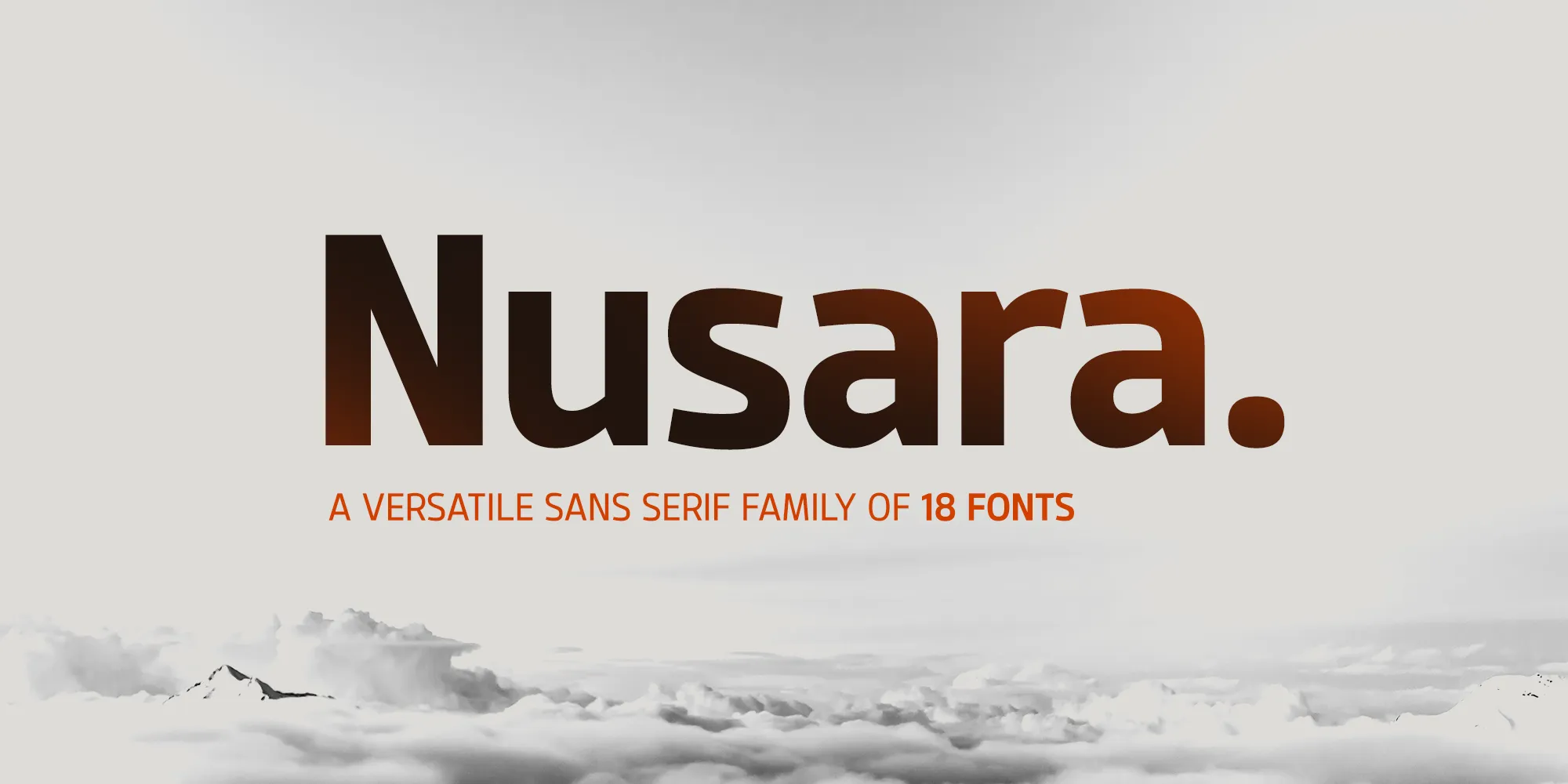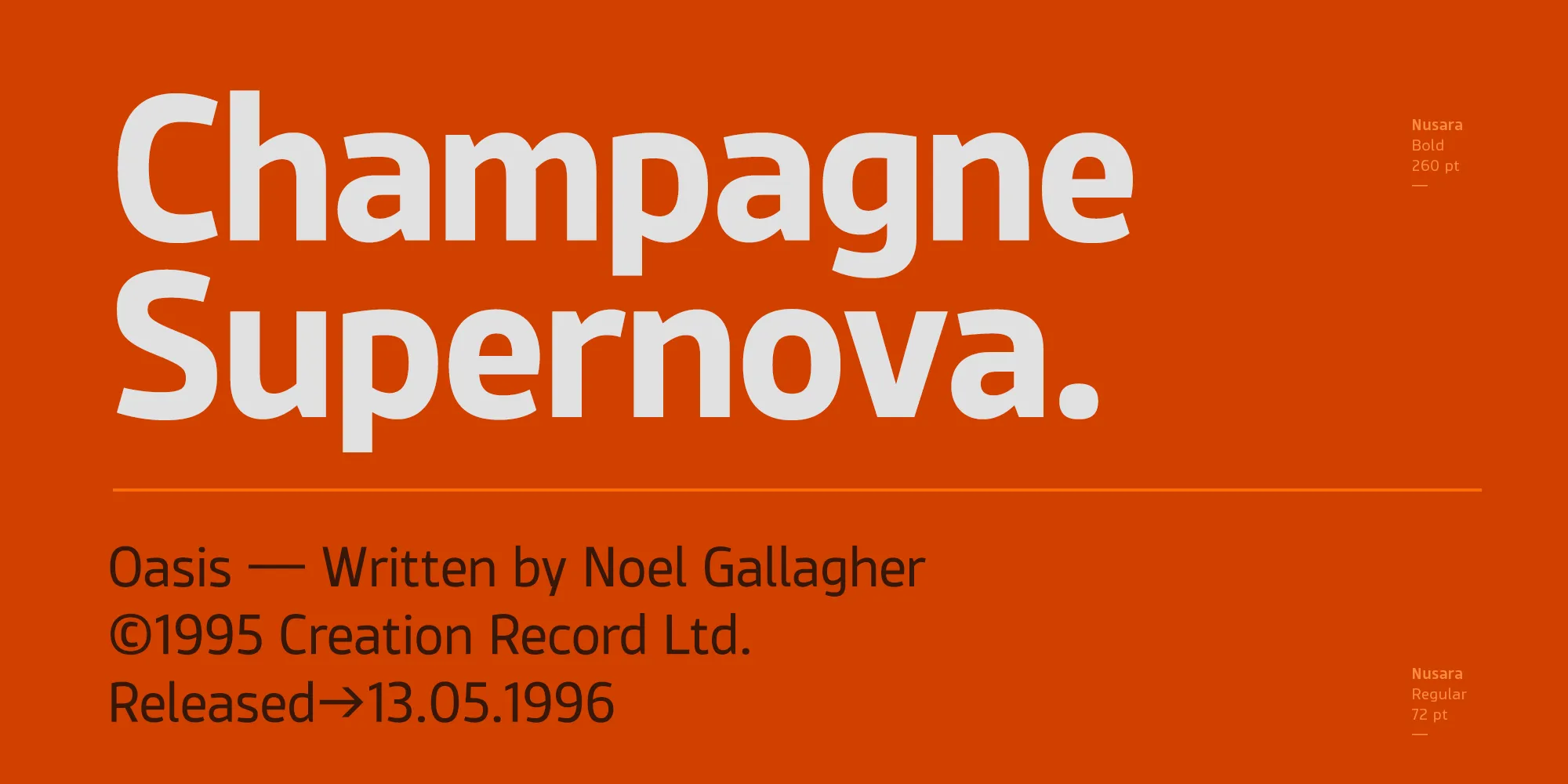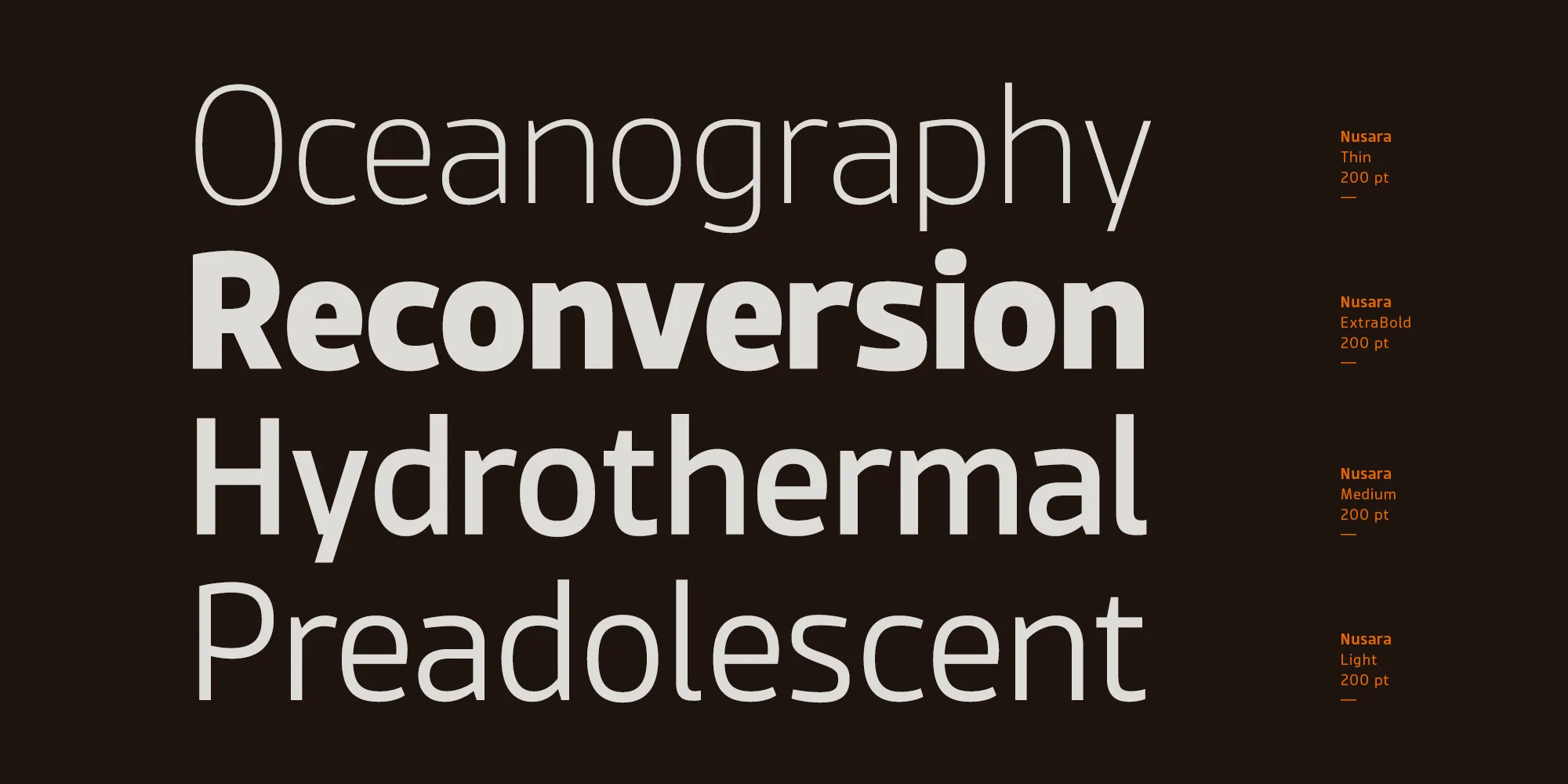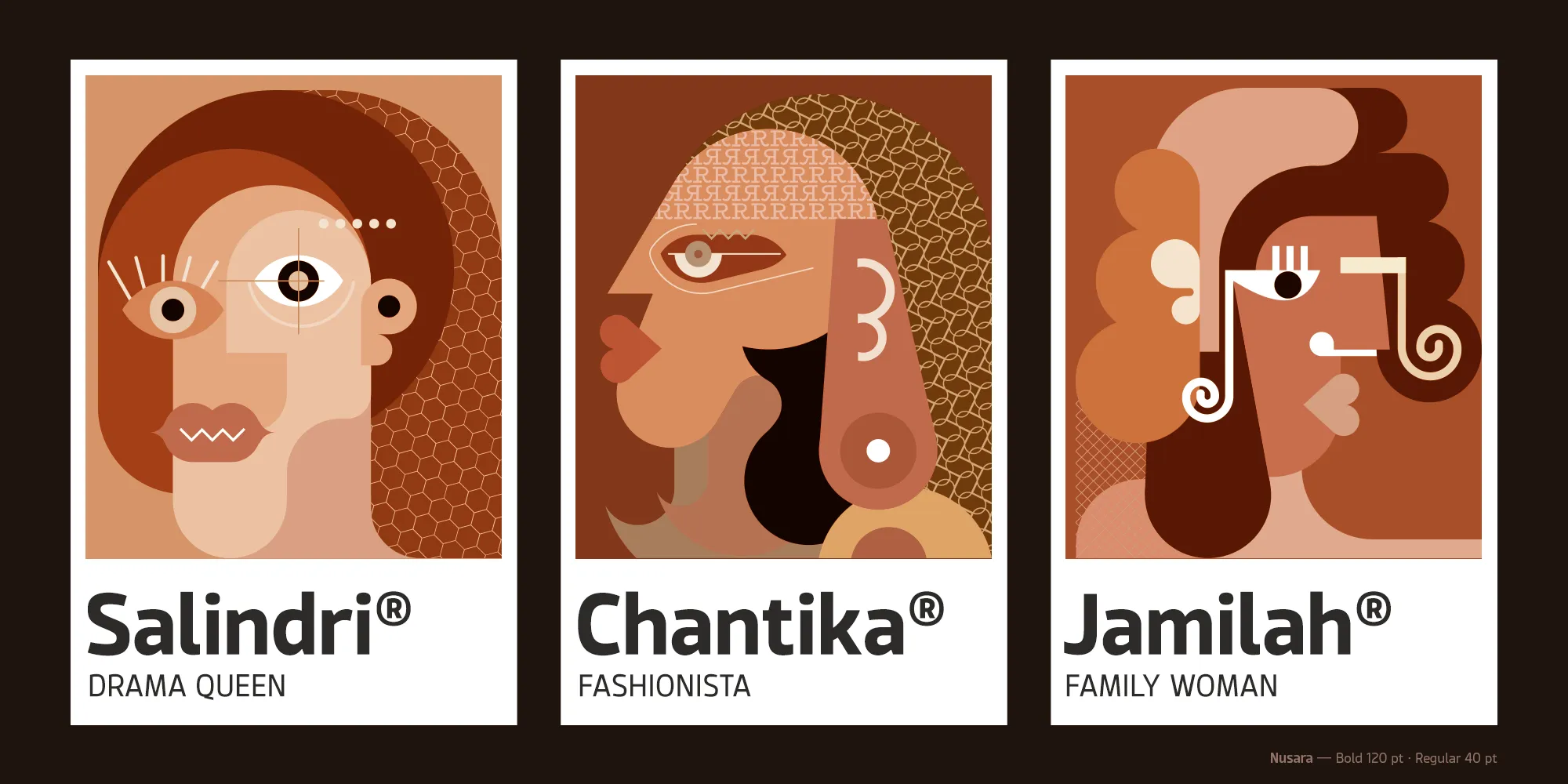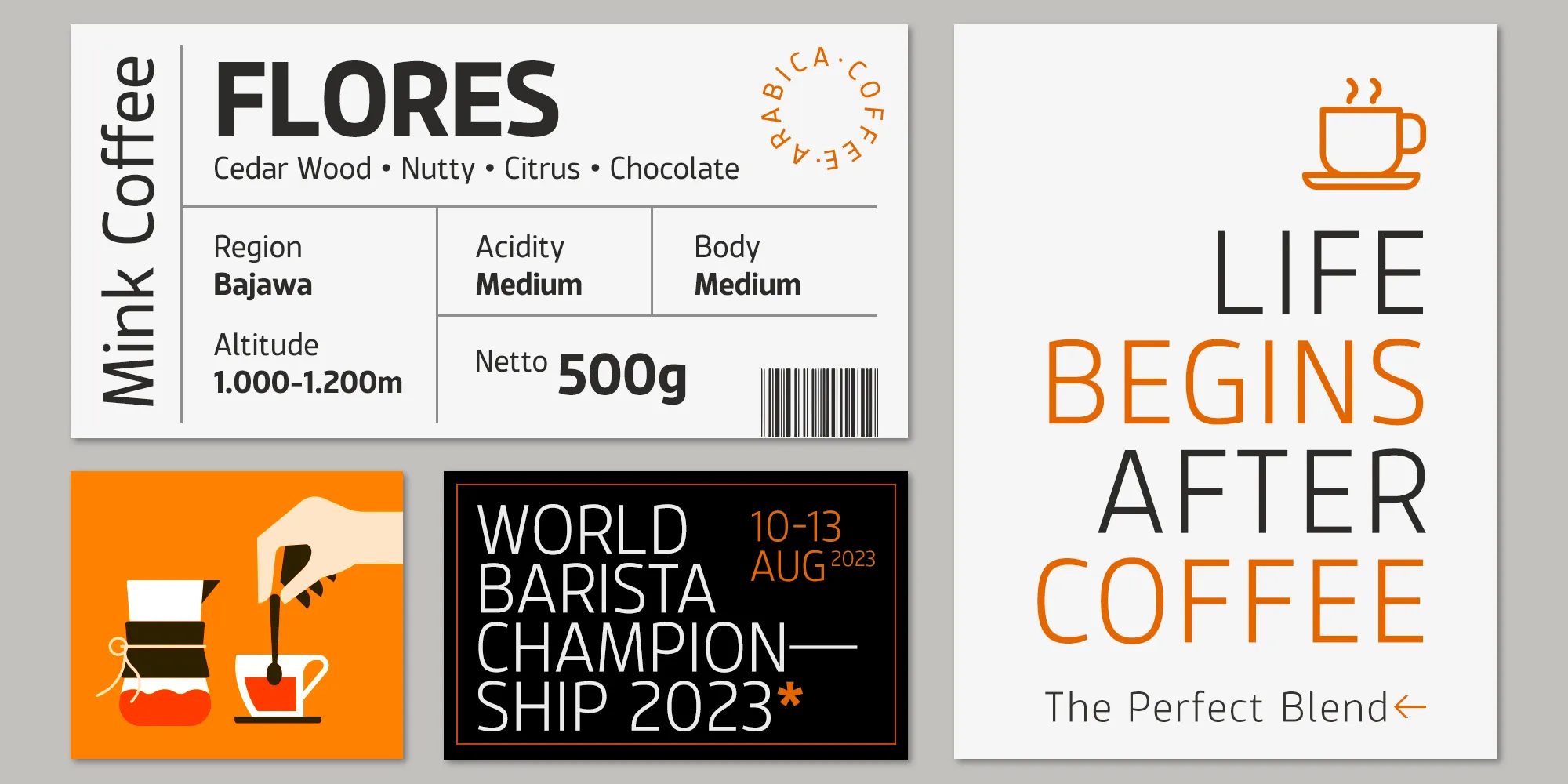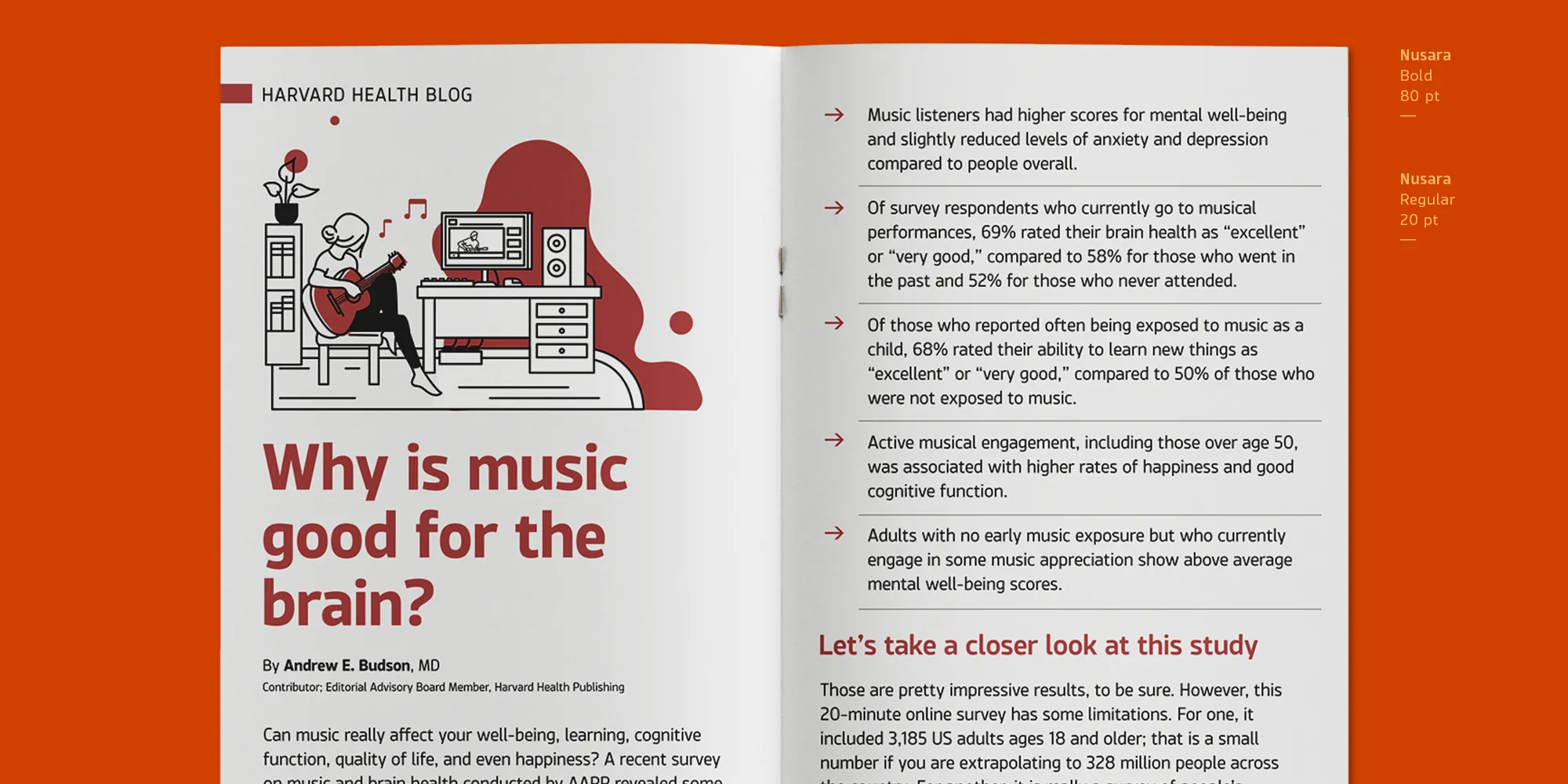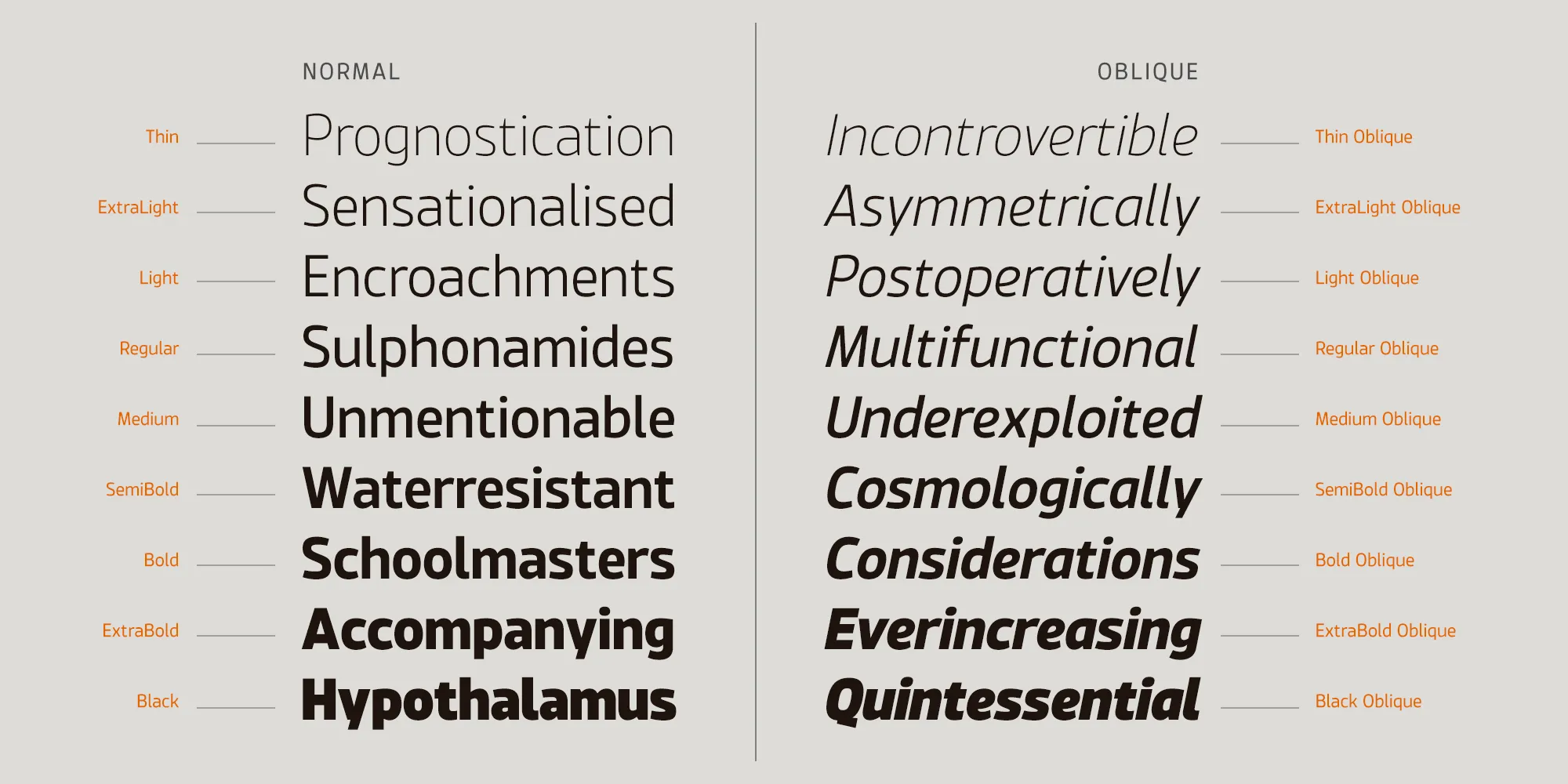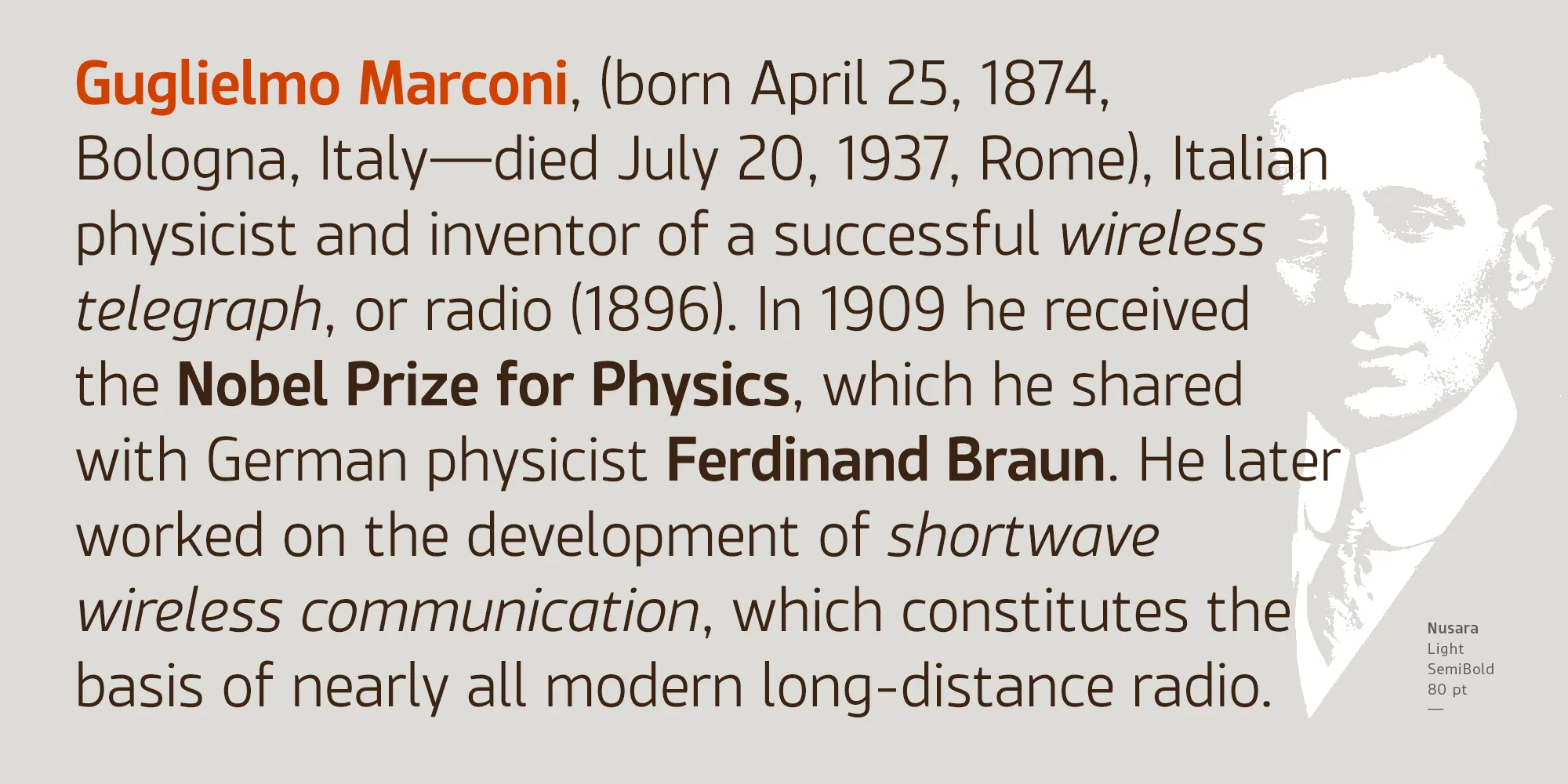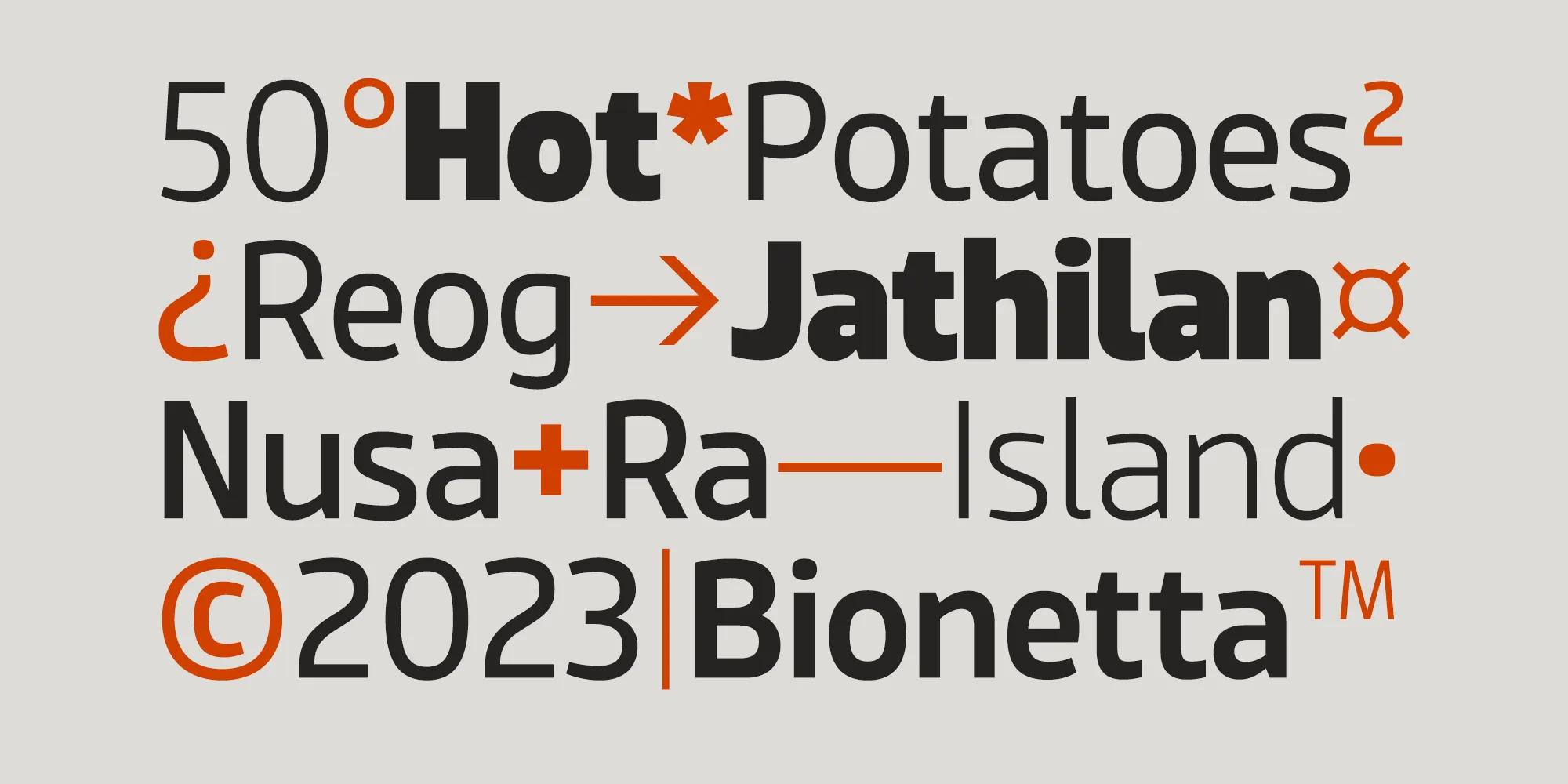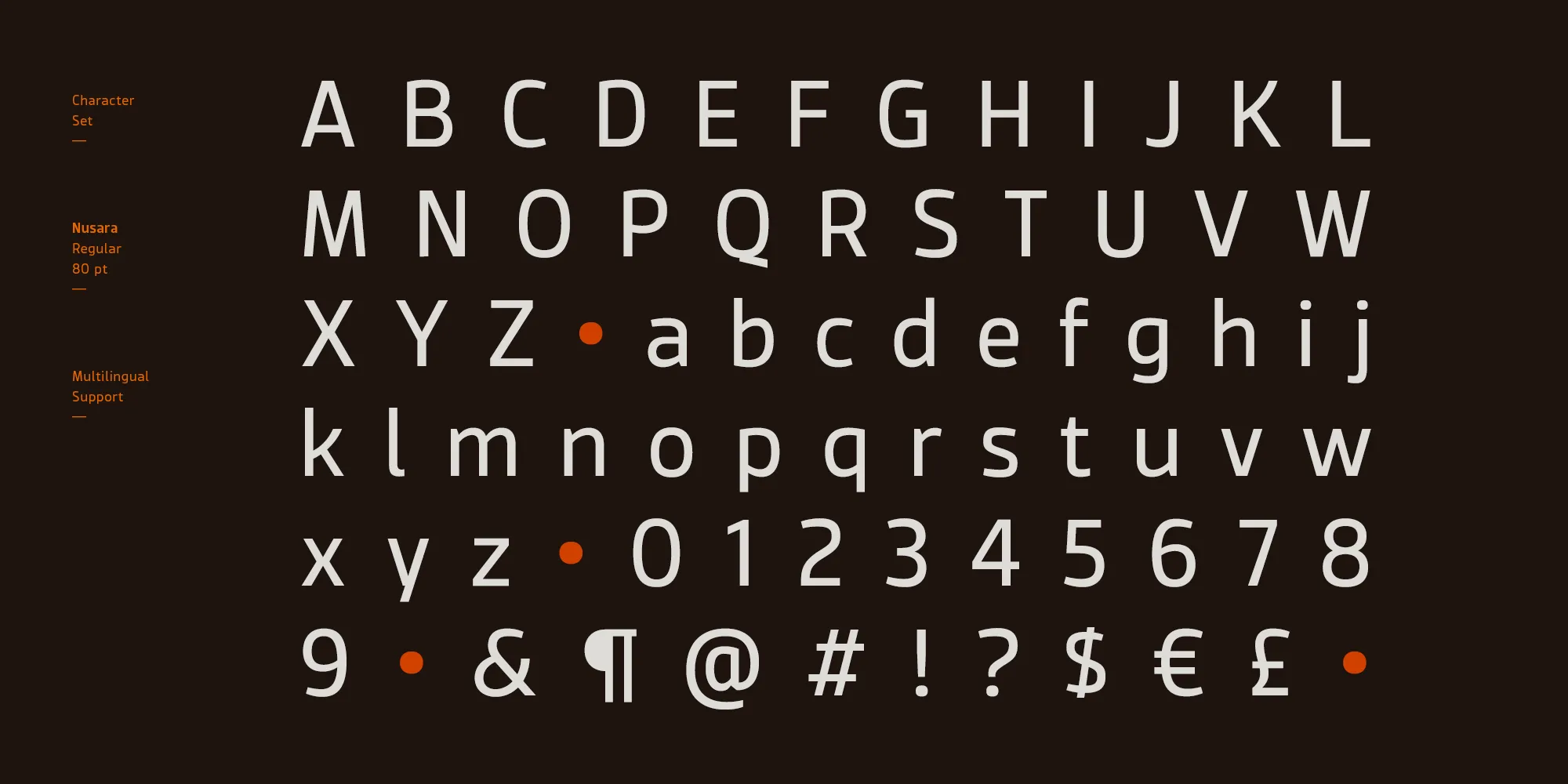
Introducing Nusara, the contemporary sans serif font that’s taking the design world by storm. With its classic typography and modern twist, Nusara is the perfect font for designers who want to make an impact. Whether you’re creating text or display materials, Nusara is versatile enough to handle it all.
Nusara is also incredibly easy to read. Its clean lines and well-designed characters make it a breeze for your audience to read your message. And because it comes in nine weights from Thin to Black with matching italics, you have plenty of options when it comes to customizing your design.
Whether you’re creating a website, a brochure, or a social media post, Nusara is the perfect font for the job. With its contemporary look and feel, and its classic typography roots, it’s a font that’s sure to make an impact. So why not add Nusara to your design toolkit today? With its versatility, readability, and nine weights to choose from, it’s the perfect font for all your design needs.